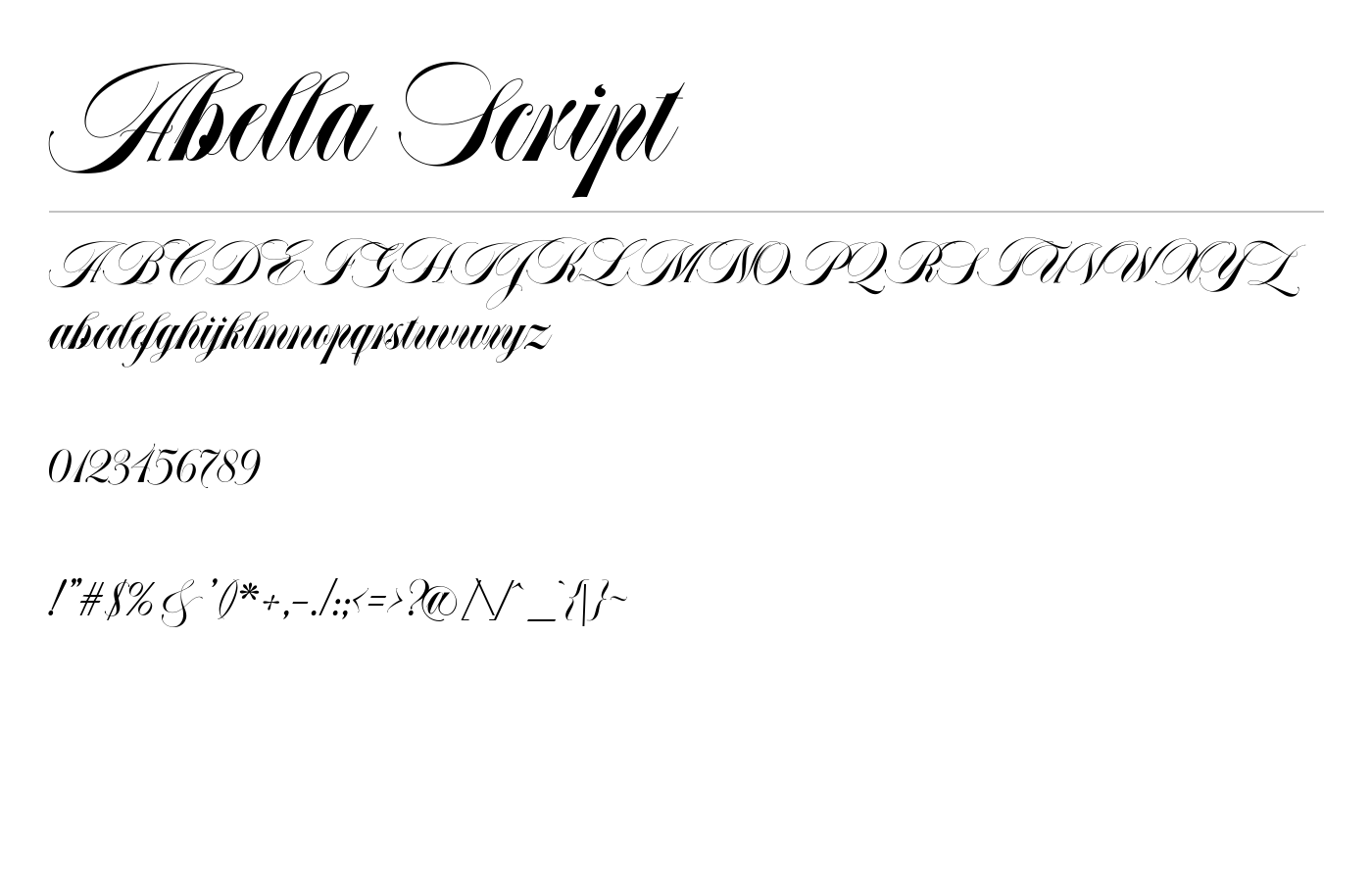
Abella Script is an elegant and sophisticated script font characterized by its high contrast between thick and thin strokes and elaborate flourishing details. It features graceful uppercase letters and more compact lowercase forms, creating a luxurious, formal feel perfect for upscale branding, wedding invitations, or editorial headlines. This font’s refined calligraphic style adds an artistic touch, making it ideal for designs that require a delicate yet striking aesthetic.
Abella Script Font
About Abella Script Font
| Font family | Abella Script Font |
| Designer | JoelMaker |